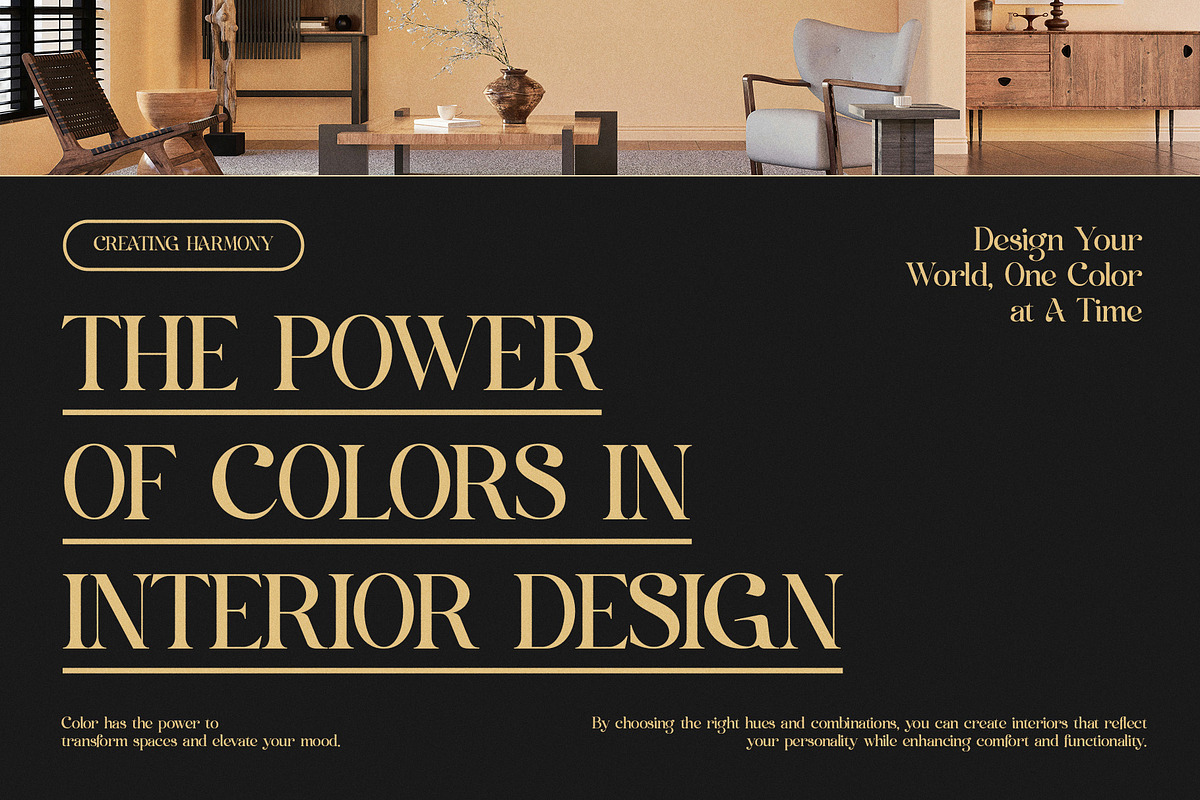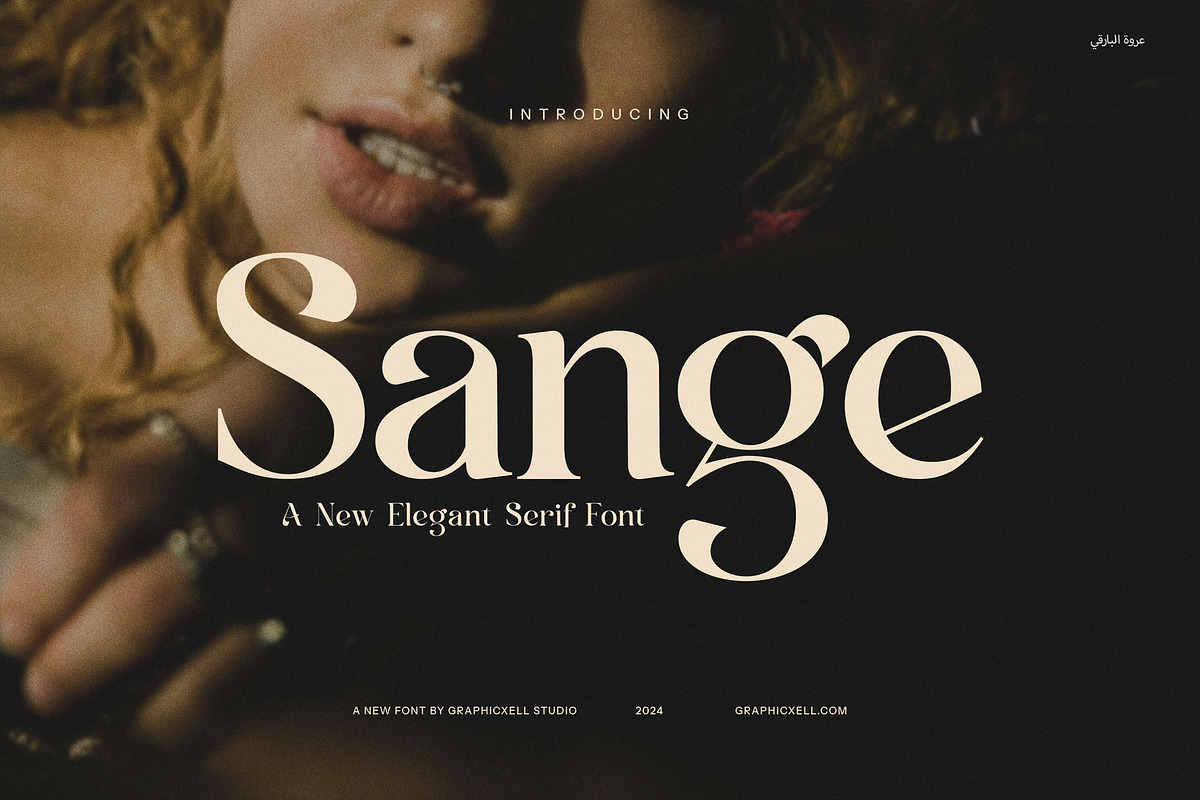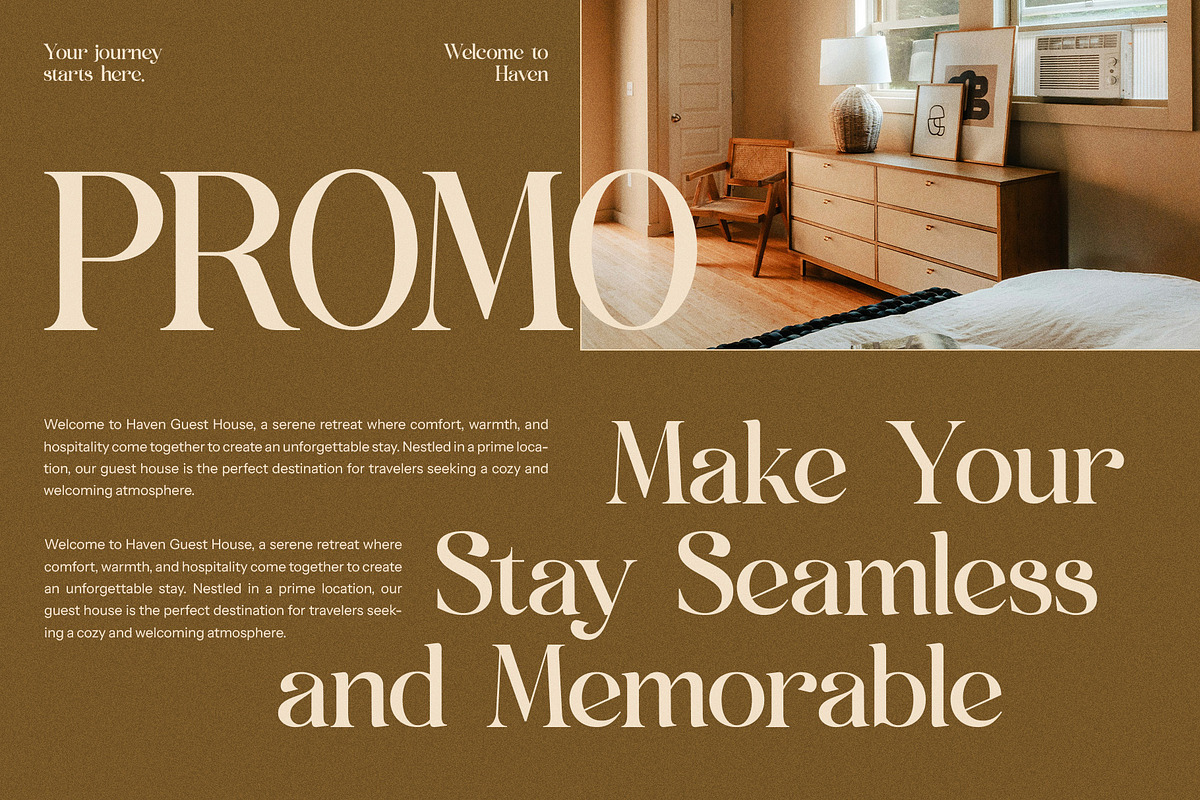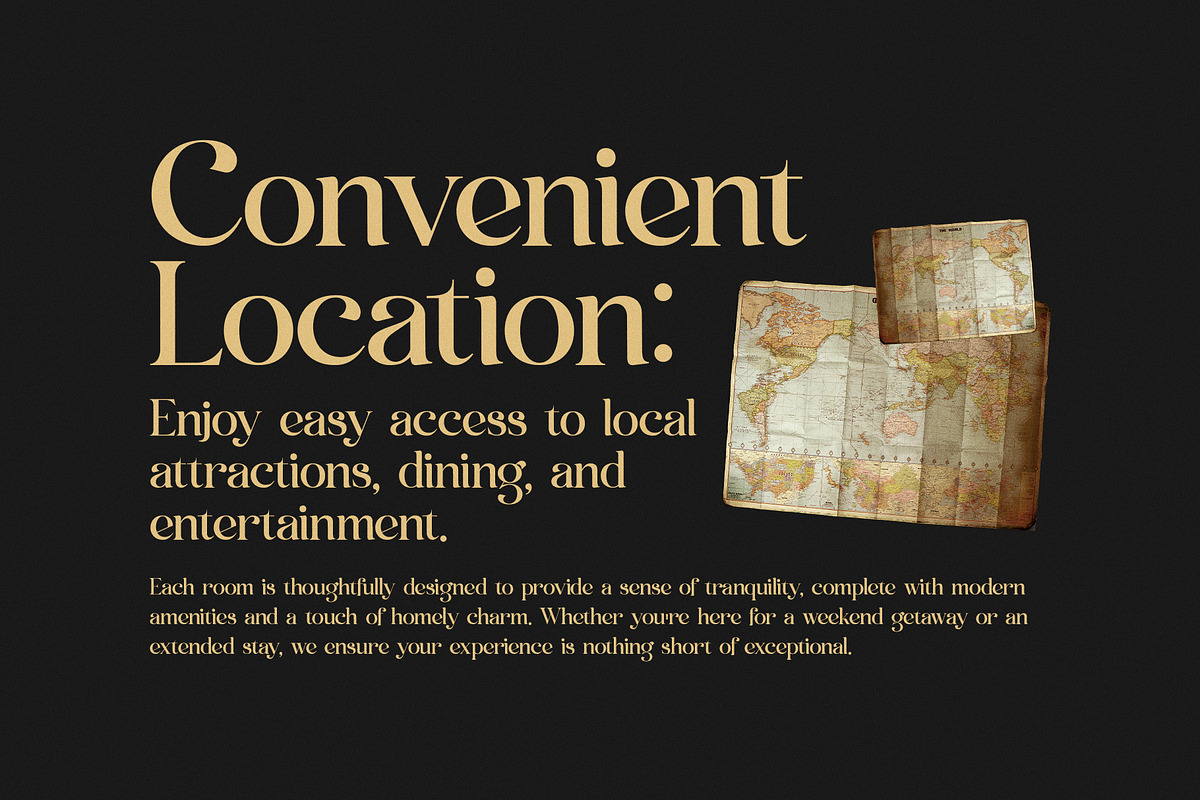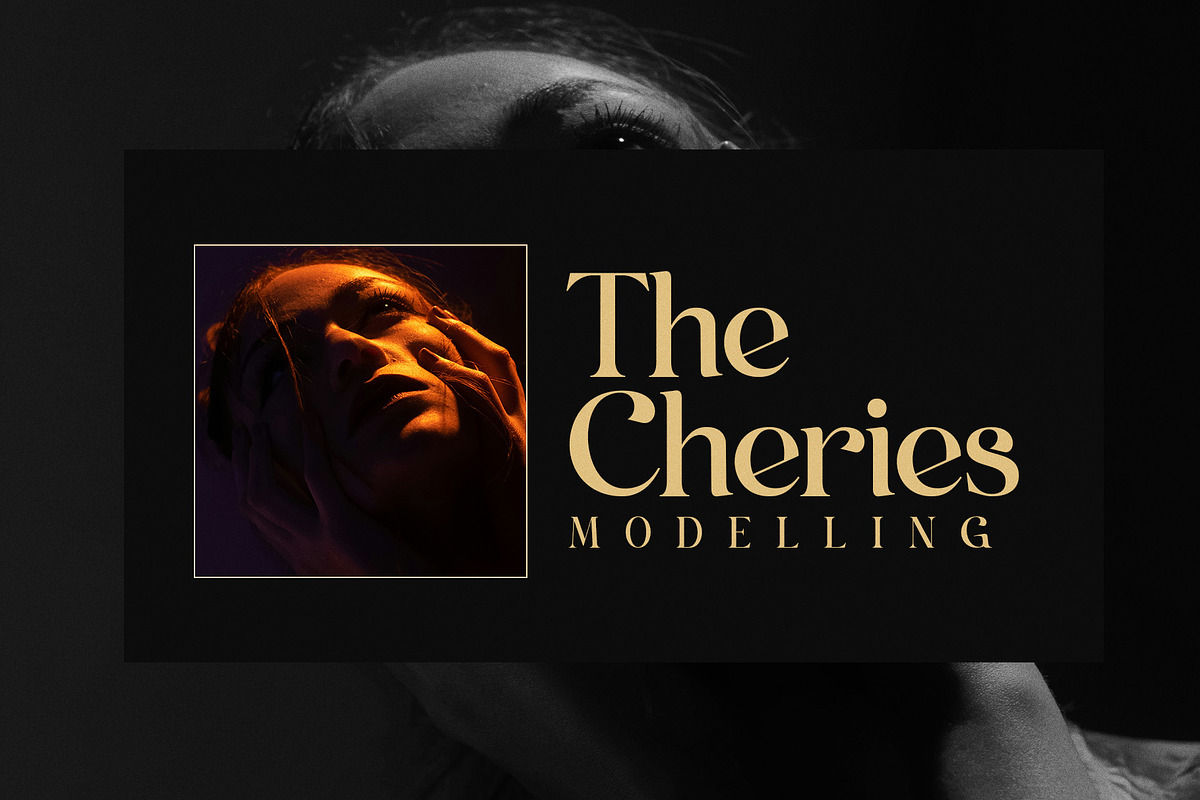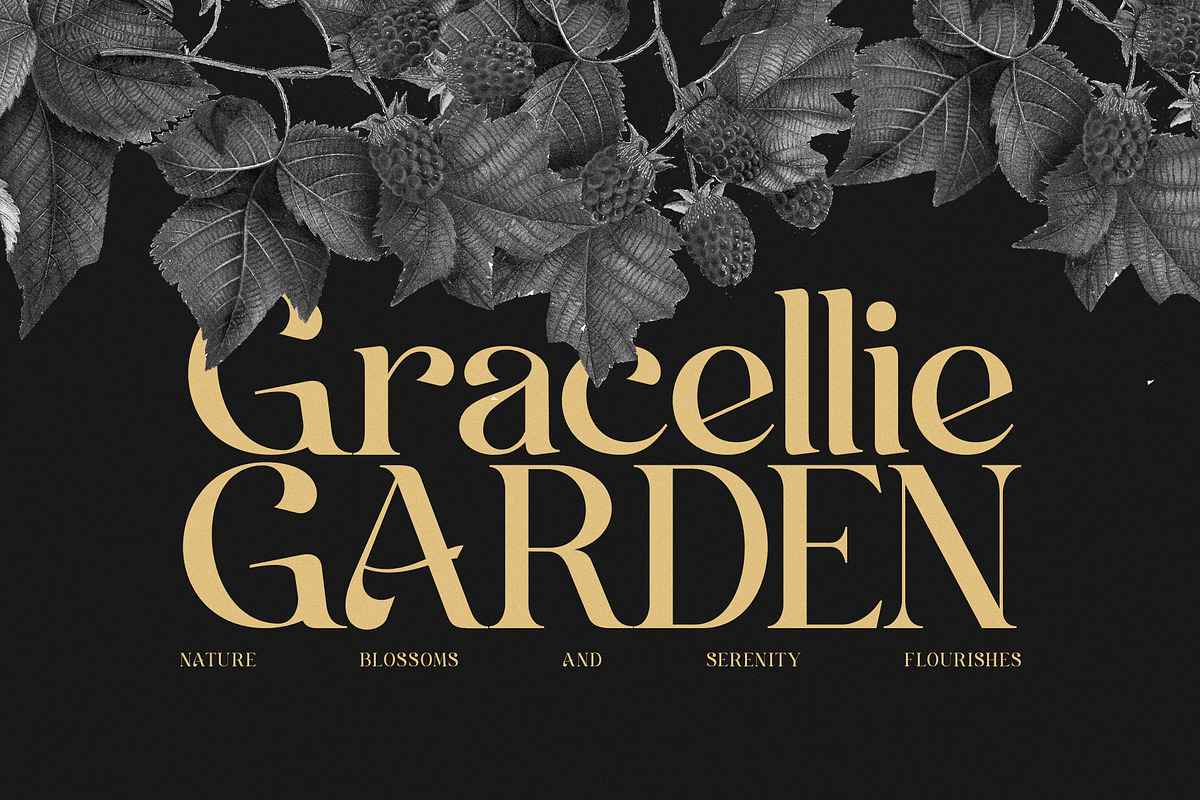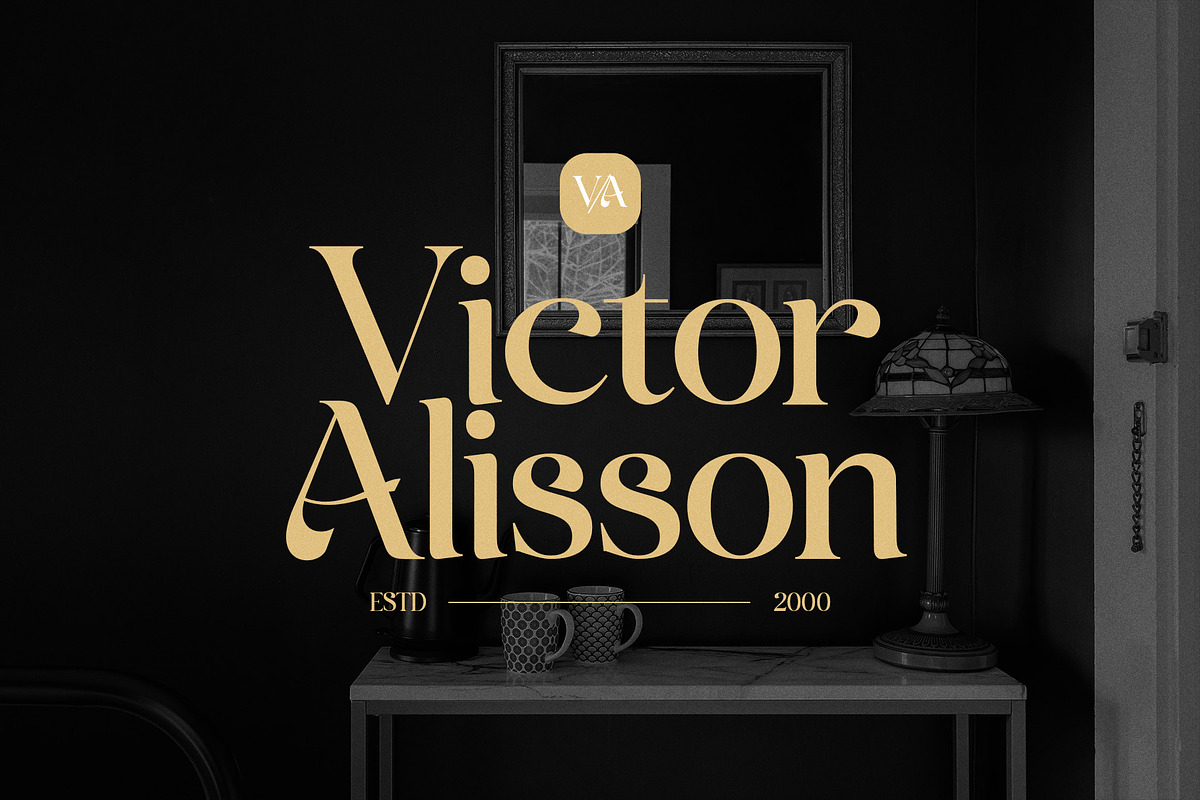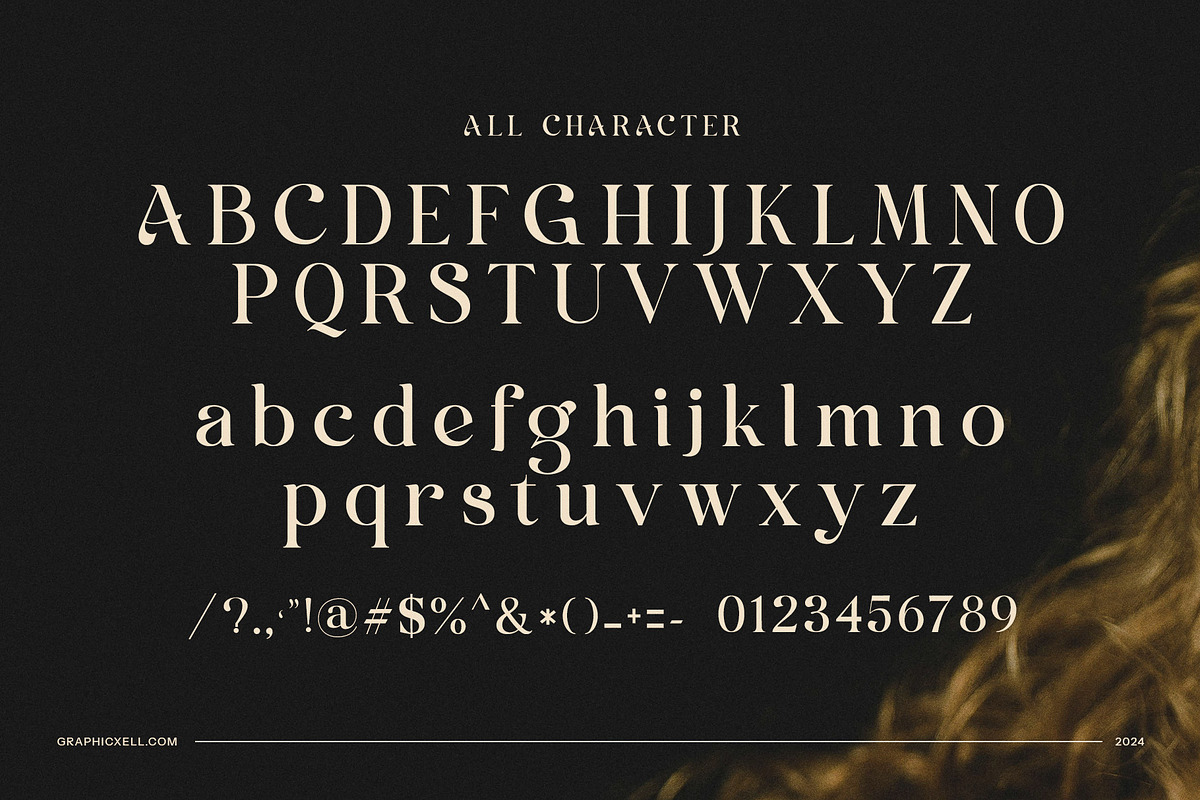
Sange Elegant Serif Font
Sange Elegant Serif Font is a sophisticated typeface that combines modern design with timeless elegance, making it the ideal choice for creative professionals and brands aiming to stand out. Its meticulously crafted letterforms blend boldness and finesse, exuding luxury and charm while maintaining exceptional readability.
The font’s unique design strikes a balance between classic serif elements and contemporary aesthetics, offering a distinctive edge for projects requiring refinement and style. Whether you’re creating a stunning logo, building a compelling brand identity, or designing eye-catching packaging, Sange Elegant Serif ensures a polished and professional result.
Versatility is at the heart of this font. Its clean, graceful lines and subtle details make it perfect for upscale boutique branding, elegant food packaging, or premium website designs. Additionally, its adaptability shines in editorial work, such as magazine layouts and advertisements, where it lends a sense of sophistication and clarity to your content.
Sange Elegant Serif Font is not just a typeface; it’s a statement. Its timeless appeal ensures it remains relevant across various design trends, making it a valuable addition to any designer’s toolkit. Whether you’re crafting high-end marketing materials, luxury product labels, or minimalist digital interfaces, this font elevates your designs to a new level of elegance.
Capture attention and leave a lasting impression with Sange Elegant Serif, a typeface that speaks to creativity, sophistication, and innovation.